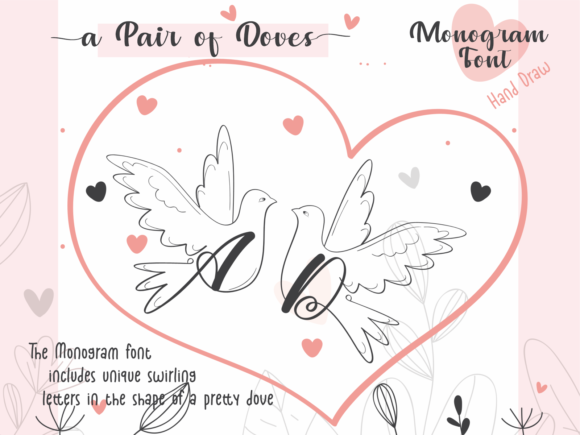
Step into the Realm of Love and Elegance with 'A Pair of Doves' - The Enchanting and Sublime Script Font
In the realm of typography, where letters dance and words take flight, there exists a font that embodies grace, love, and ethereal beauty. 'A Pair of Doves', a decorative font adorned with dainty doves as ornaments, is a creation that captivates the heart and ignites the imagination.
This font is an ode to romance, a symphony of elegance, and a testament to the power of creative expression. Each character is meticulously crafted to mirror the delicate wings of doves in flight, adding a touch of whimsy and enchantment to your designs.
With its incredibly versatile style, 'A Pair of Doves' is the perfect choice for a multitude of creative endeavors. Envision your wedding invitations adorned with this font, exuding a sense of timeless elegance. Picture stationary art that comes alive with the beauty of doves, evoking a feeling of tranquility and joy. Create social media posts that captivate your audience, leaving them spellbound by the font's ethereal charm.
'A Pair of Doves' is not just a font; it's an experience. A journey into a world of love, hope, and boundless creativity. Let your imagination soar as you explore the endless possibilities that this font offers. Elevate your designs to new heights of beauty, leaving a lasting impression on all who encounter them.